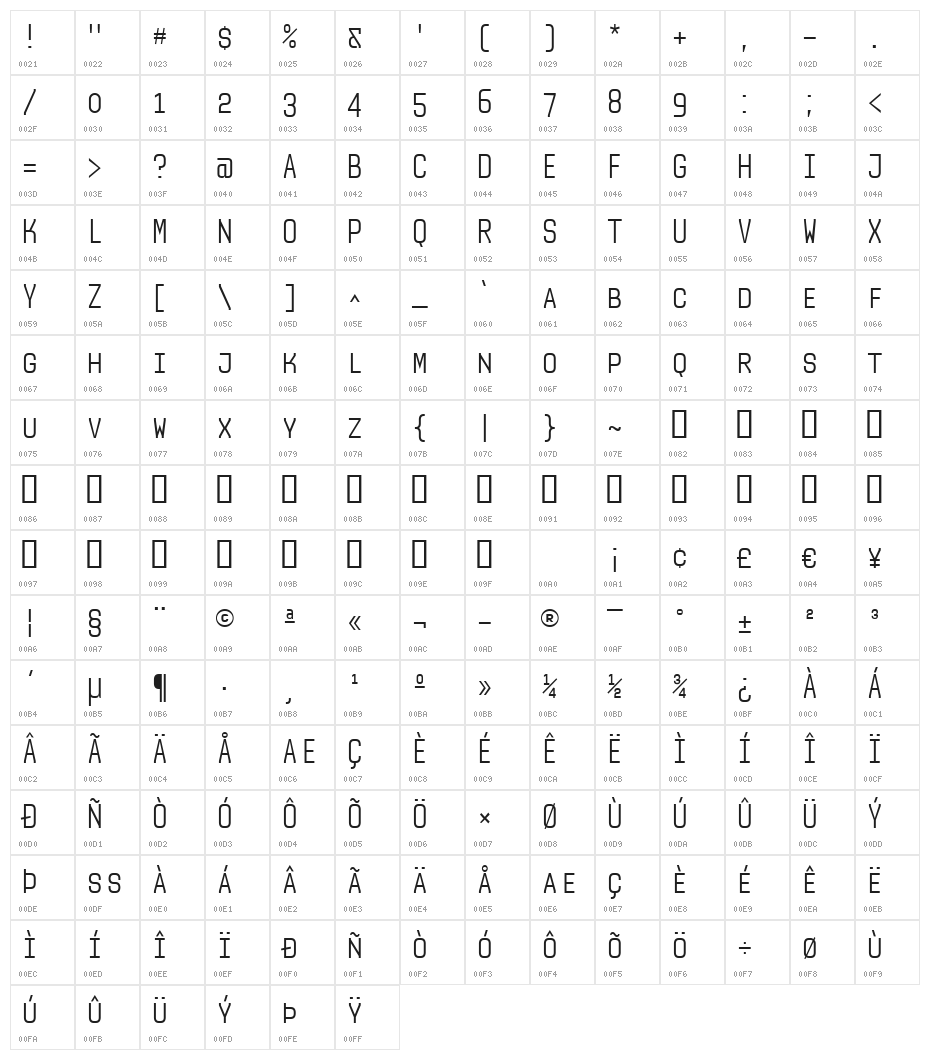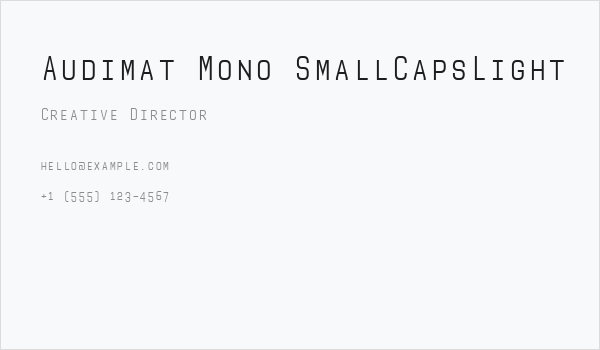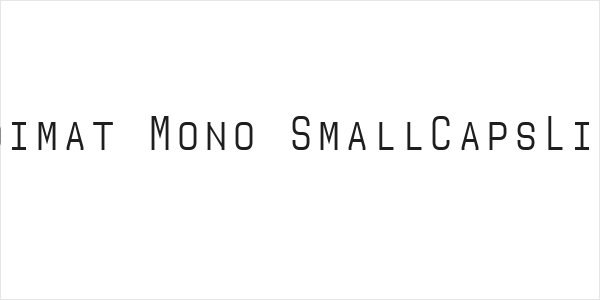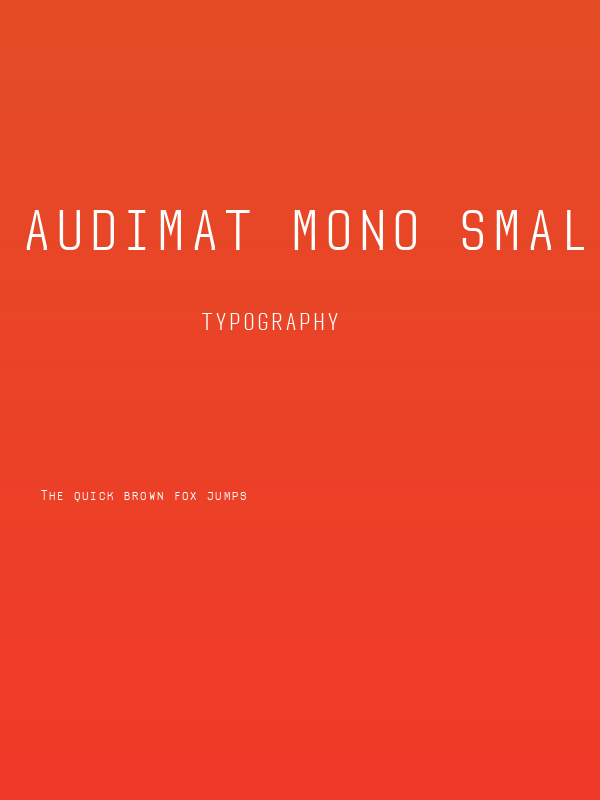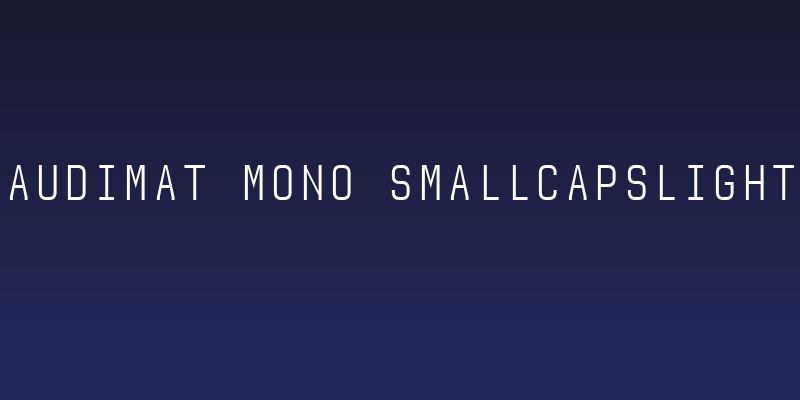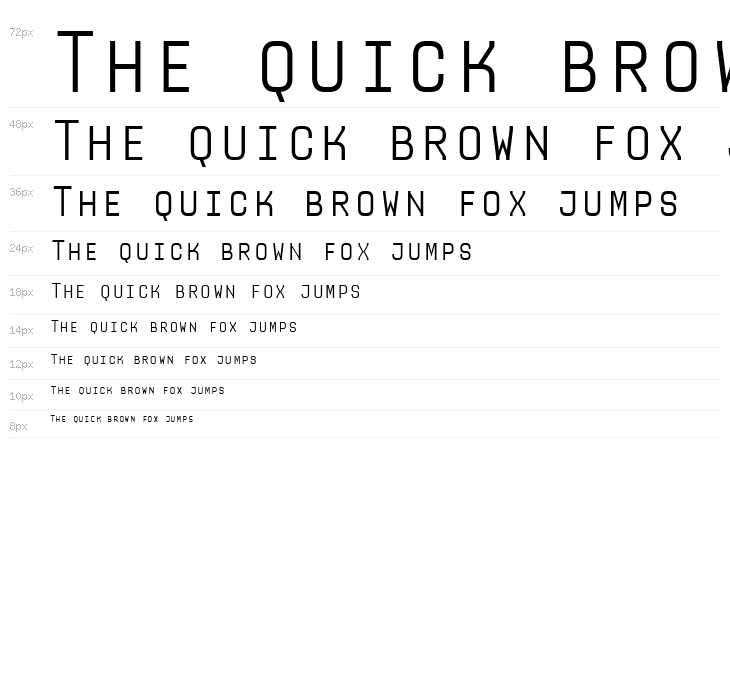
Audimat Mono SmallCapsLight Font
Audimat Mono SmallCapsLight Description
This font showcases a clean, modern monospaced style with a geometric structure. Each character is designed with precision, maintaining equal width for a uniform appearance. The uppercase and lowercase letters are crafted with sharp angles and straight lines, giving a technical and contemporary feel. The numerals and special characters follow the same design principles, ensuring consistency across all glyphs. The overall look is minimalistic yet sophisticated, making it suitable for a variety of digital and print applications.
| Use Case | Coding, Technical documentation, Branding |
| Proposed Projects | Ideal for coding environments, technical documentation, modern branding, and minimalist design projects. |